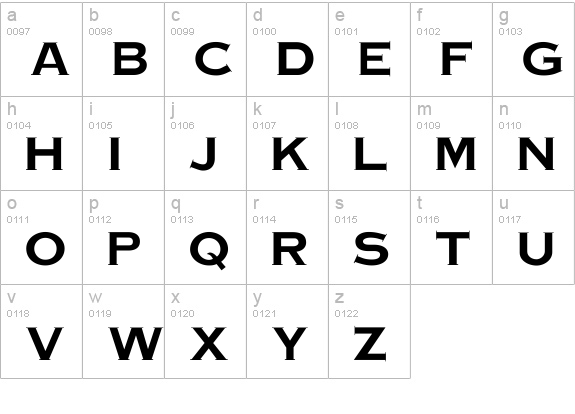
CopperplateGothicBold Font Details
CopperplateGothicBold is a classic and timeless font that exudes elegance and sophistication. With its bold and striking appearance, this font is perfect for creating impactful headlines and titles. Its clean lines and sharp edges make it highly readable and versatile for a variety of design projects. What sets CopperplateGothicBold apart is that it is available for free download at FontsMarket.com, making it easily accessible to designers and enthusiasts alike. Whether you're working on a professional project or a personal endeavor, CopperplateGothicBold is a reliable choice that will elevate your designs to the next level.